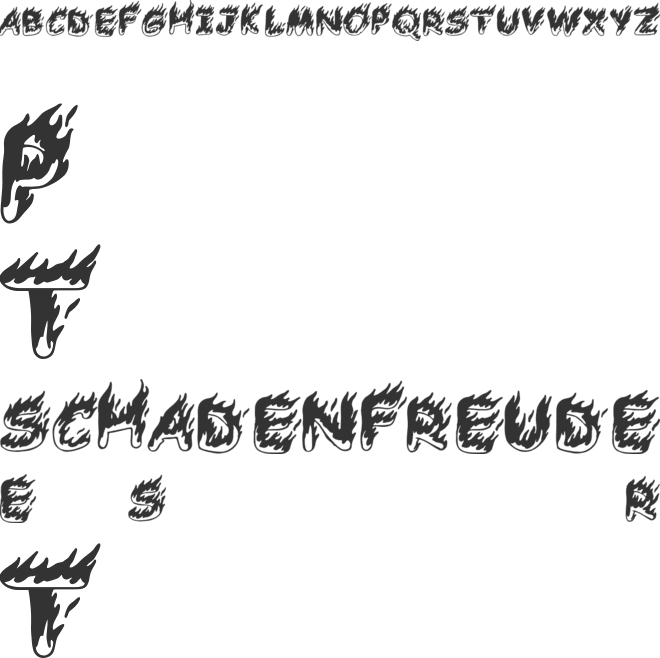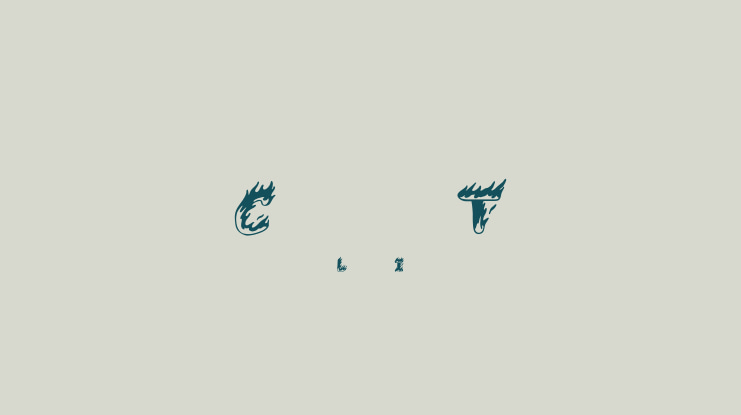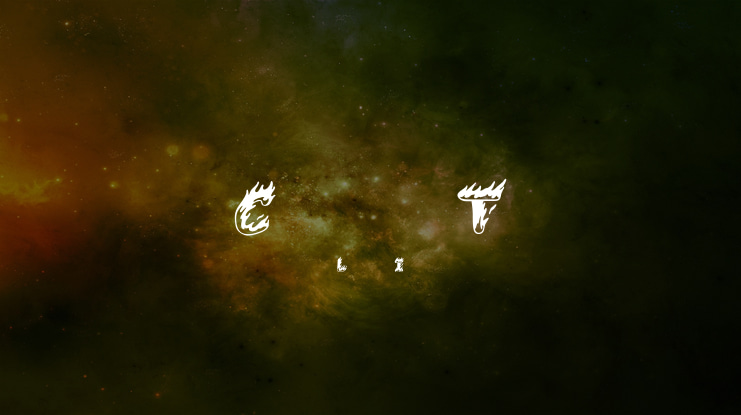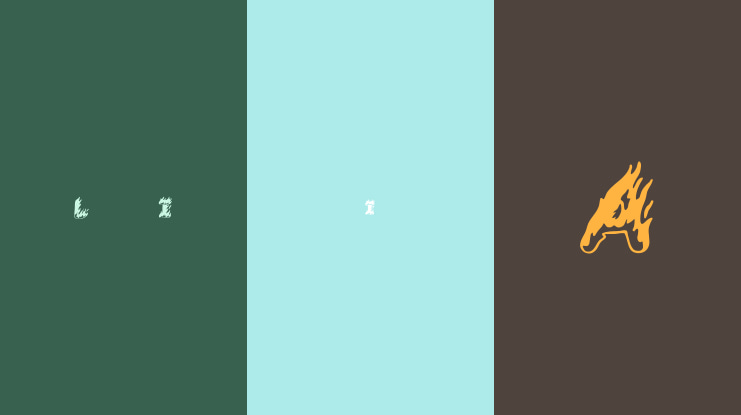
Comic Tragedy Font Family
Comic Tragedy By BC - VNBC
This hand-drawn burning font inspired by Comic Sans MS (elected worst font on earth) is perfect when party turns bad.
It comes in three styles: Regular - Base - Flames
Base and Flames work together for a burning bright two color.